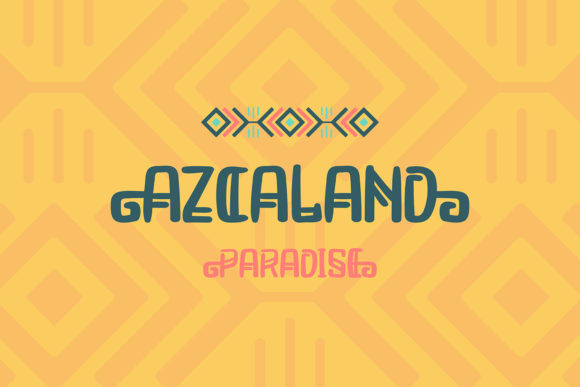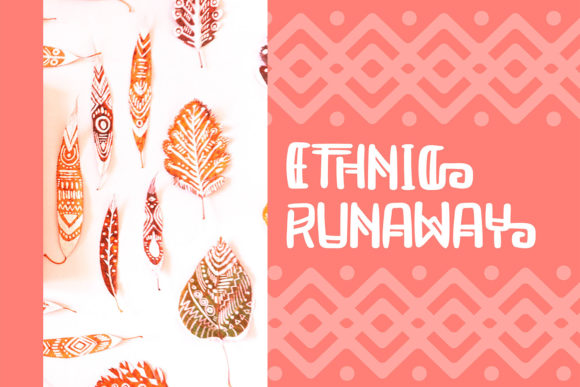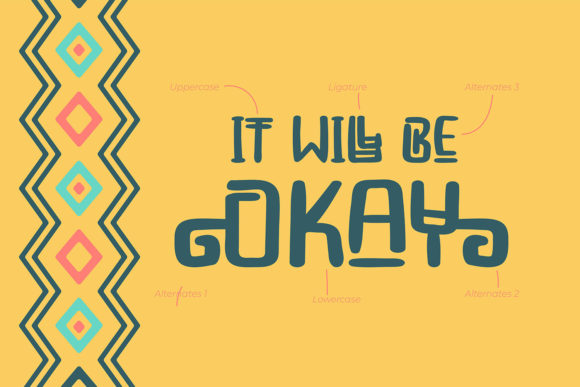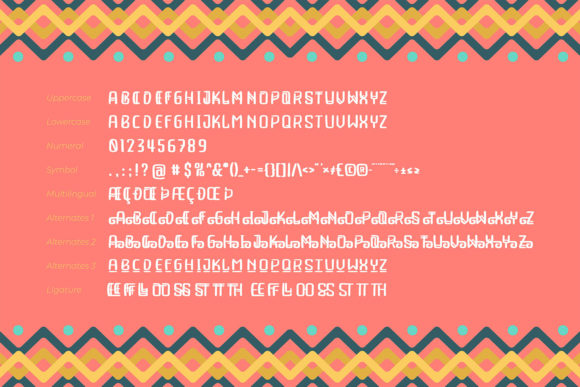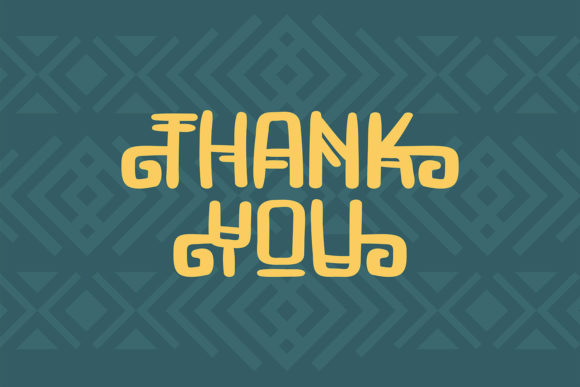
Introduction to Ethimica Font
Ethimica is a stylish and trendy display font.
Incredibly original, this font will make each of your designs look lovely .
Key Features of Ethimica Font